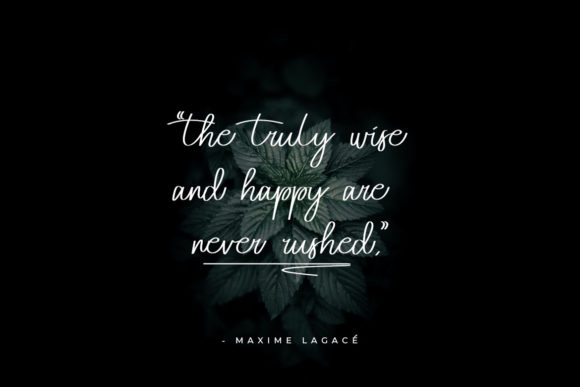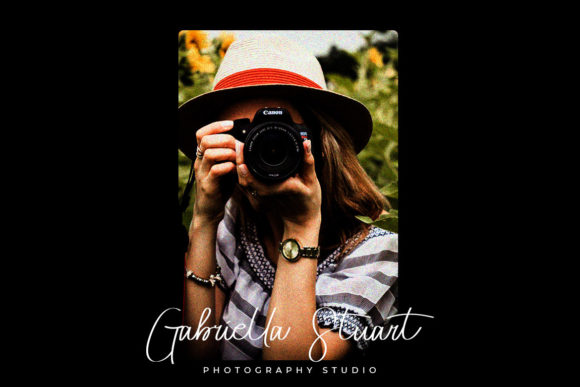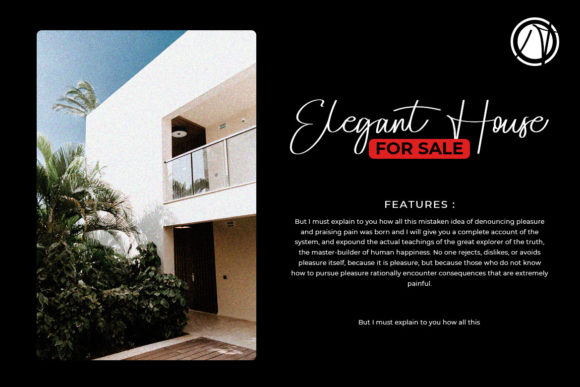
About Afontros Font
Afontros is a thin and delicate handwritten font. Dainty and joyful, this font will be ideal for writing wedding invitations, cards or any other design that may need a romantic, personalized touch!